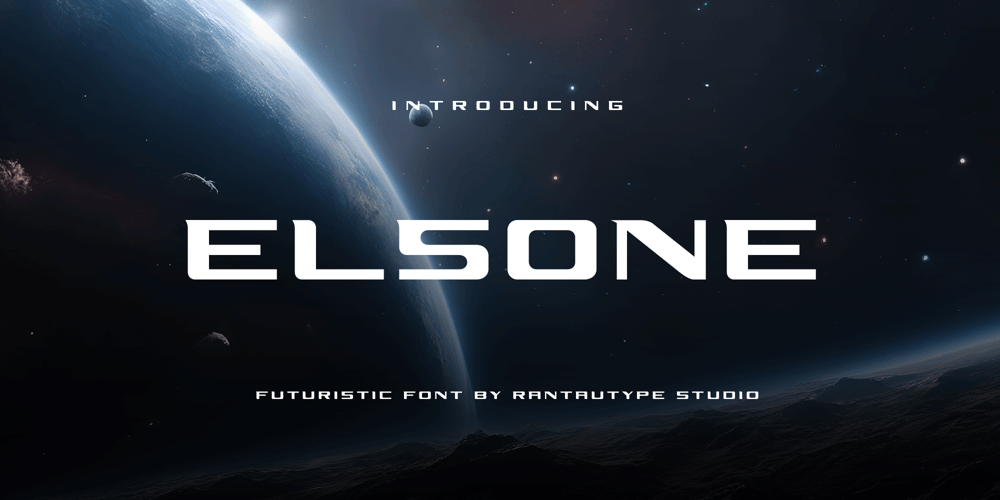
Elsone Font Family was designed by Yudi Pratama Chandra and published by RantauType. Elsone contains 2 styles and family package options. Hi Ladies and Gentleman !Proudly present Elsone futuristic font, by rantautype.Experience modern in a futuristic visual form for your design with the elsone font. Inspired by the science fiction movies and futuristic digital concept. Strong and eye catch look is the main style for this typeface also outline style give more modern and elegant look. Unique alternate give more value for this typeface to stand out. Elsone come with ligature, alternate and mulilingual support.Perfectly suitable for any creative endeavor, business project, corporate project, sports brand, logo, business card, games, posters, film/movie, packaging, events, advertising, digital futuristic concept and more. Now you can use Elsone to elevate you design.Features: Standar letter A-Z and a-z Numberial and Functional Alternate and Ligature Works on PC & Mac Simple installations Accessible in Adobe Illustrator, Adobe Photoshop, Adobe InDesign, even work on Microsoft Word. PUA Encoded Characters – Fully accessible without additional design software. Fonts include Multilingual Support for: Afrikaans, Albanian, Asu, Basque, Bemba, Bena, Breton, Chiga, Cornish, Dutch, English, Estonian, Filipino, Finnish, Friulian, Galician, Gusii, Indonesian, Irish, Italian, Kabuverdianu, Kalenjin, Kinyarwanda, Luo, Luxembourgish, Luyia, Machame, Makhuwa-Meetto, Makonde, Malagasy, Manx, Morisyen, North, Ndebele, Nyankole, Oromo, Portuguese, Quechua, Romansh, Rombo, Rundi, Rwa, Samburu, Sango, Sangu, Scottish, Gaelic, Sena, Shambala, Shona, Soga, Somali, Spanish, Swahili, Swedish, Swiss, German.Thank you for your purchase!Hope you enjoy with our font!